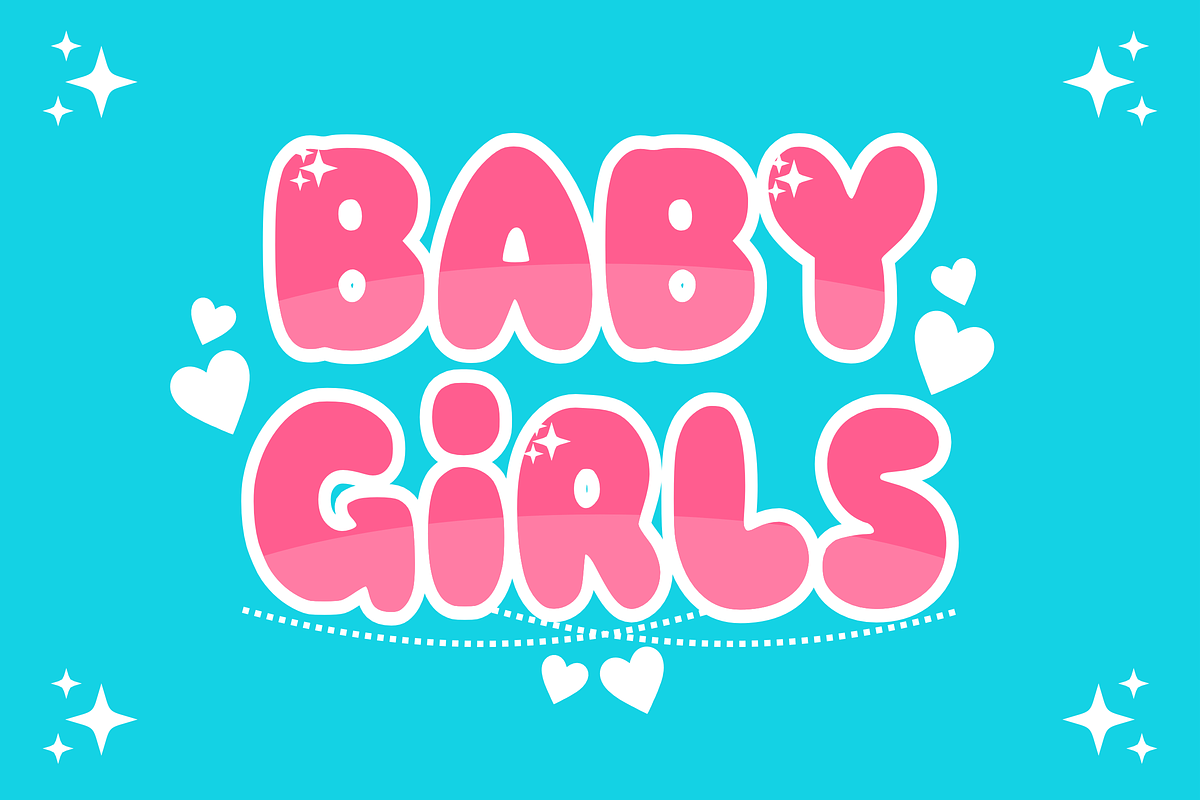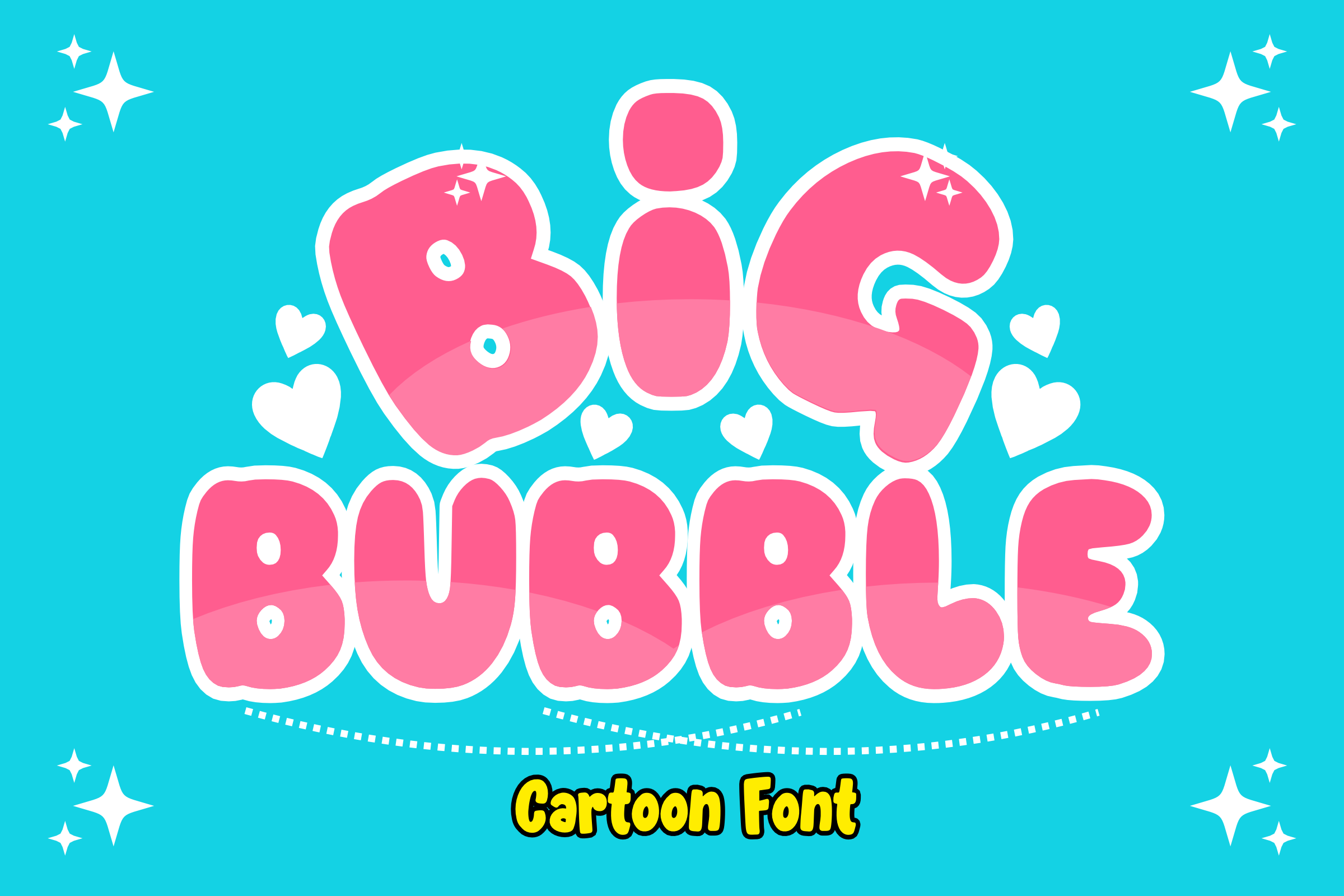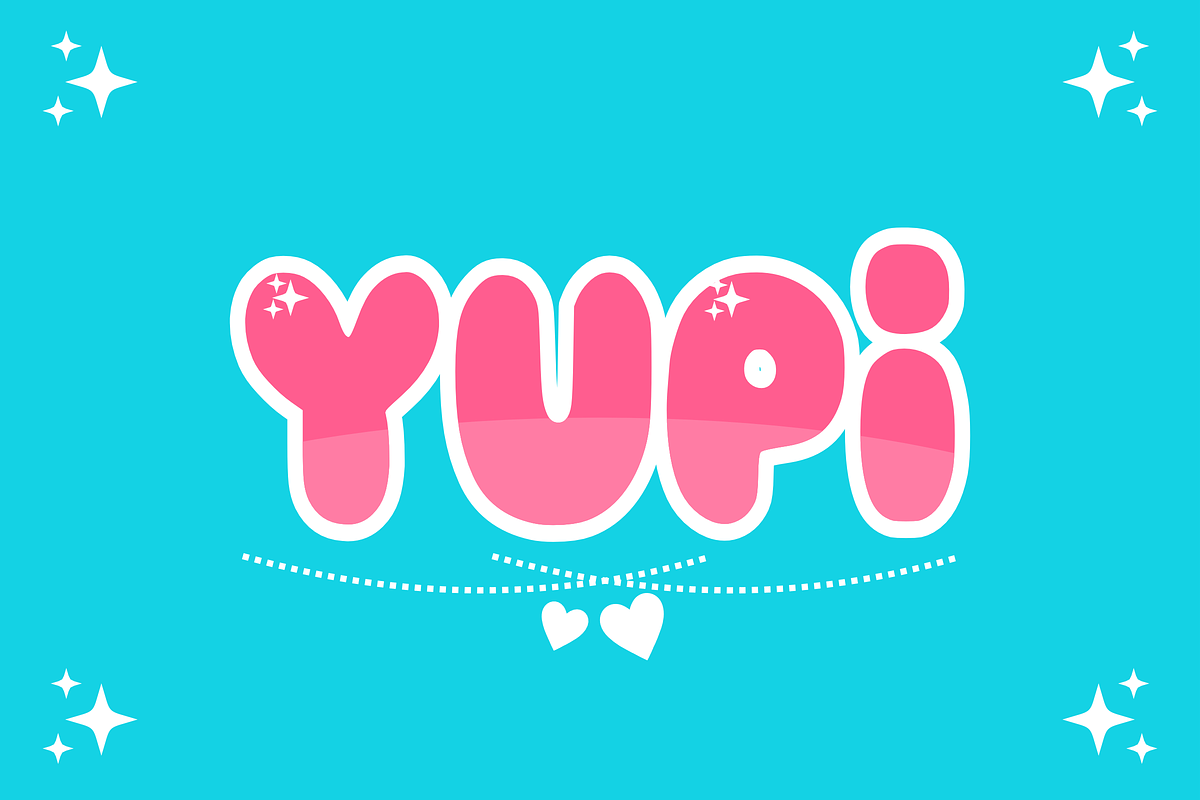
Big Bubble - Bubble Font Types
Introducing “Big Bubble” is a cheerful and modern Bubble font; each character is bold, so it is easy to recognize. Perfect for sublimation designs for t-shirts, mugs, tote bags, animations, comic titles, and more. Pour your imagination here!